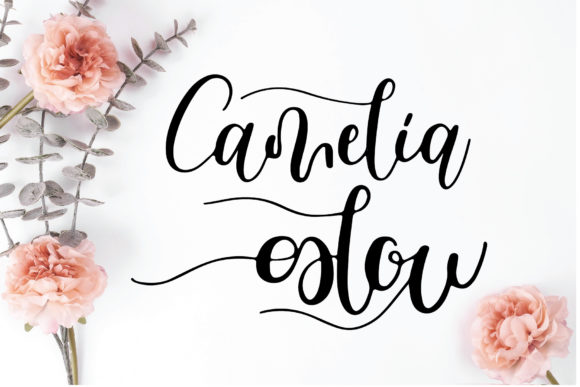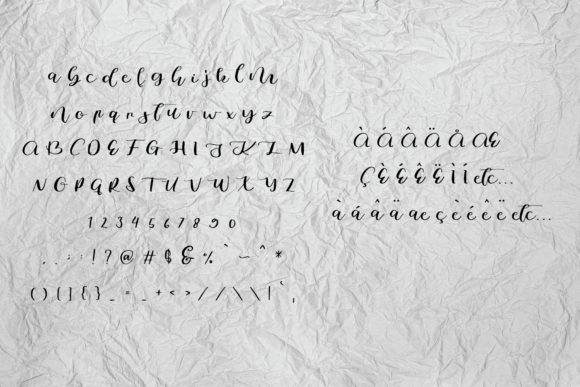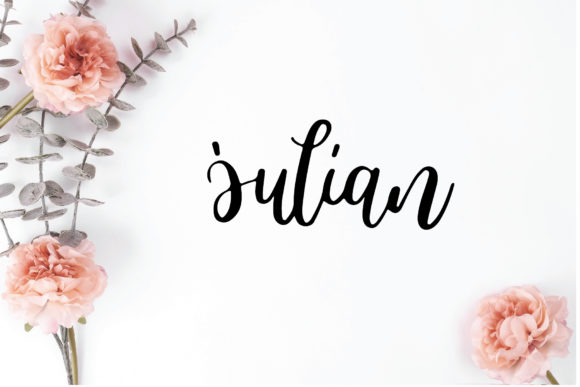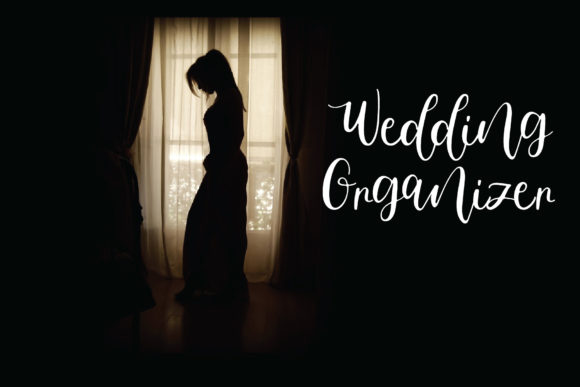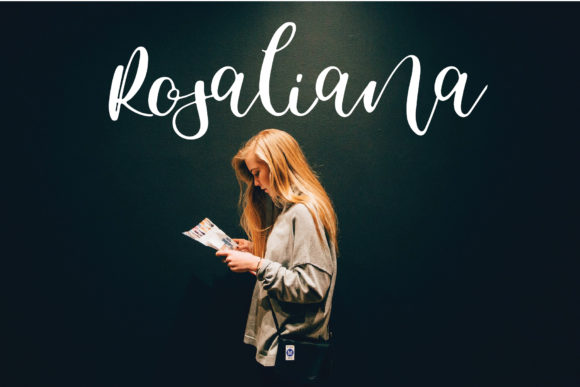
HomeScript FontsCamelia Glow Font Script Fonts Camelia Glow Font FacebookXPinterestWhatsApp Camelia Glow Font Poster 2 Camelia Glow Font Poster 3 Camelia Glow Font Poster 4 Camelia Glow Font Poster 5 About Camelia Glow Font Camelia Glow is a truly outstanding script full of life. Get inspired by its unique charm! DOWNLOAD NOW People also explored Nightmare Font Hello Bestie Font Romantic Handmade Font Mezza Extra Black Font Notificateur Font Rinjani Font Tiara Font Hedgehog Font Battnise – Brush Font 359 0 TagsCamelia Glow Font Previous articleKayla Katrina FontNext articleCaribean Font LEAVE A REPLY Cancel reply Comment: Please enter your comment! Name:* Please enter your name here Email:* You have entered an incorrect email address! Please enter your email address here Website: Save my name, email, and website in this browser for the next time I comment. Personal Use Free Zelega Zenega Personal Use Free Read more about this font Husky Stash Personal Use Free Read more about this font Free Personal Use Free Read more about this font Whitelight Personal Use Free Read more about this font BLOG Top 10 Handwritten Fonts That Elevate Your Designs Top 10 Handwritten Fonts That Will Elevate Your Designs Handwritten fonts bring a warm, personal touch to every creative project. Whether you're designing logos, invitations,... To increase your work productivity, choose the most readable fonts. Exploring Font Trends How to Install and Use Fonts on Windows, macOS, and Web Projects